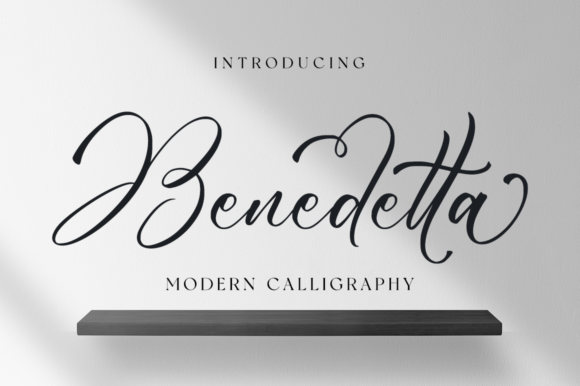
Discover the Elegance of Benedetta Font
As a designer, there’s nothing quite like the thrill of bringing a concept to life. It’s that moment when the blank page is transformed into a vibrant canvas, and your imagination runs wild. You’re searching for the perfect font to set the tone, to evoke emotions, and to make your design truly unforgettable. That’s where the Benedetta Font comes in – a beautiful and delicate handwritten font that adds a touch of luxury to any project.
This stunning font is more than just a pretty face; it’s a valuable tool for designers who want to create something truly special. With its unique feel and PUA encoding, you’ll have access to a wide range of glyphs and ligatures that will elevate your designs to the next level. Whether you’re working on a wedding invitation, a branding project, or a marketing campaign, the Benedetta Font is sure to make a lasting impression.
Benedetta Font Key Features
- Font Family: Benedetta is a script font designed by Alessio Leonardi, a typeface that exudes elegance and sophistication.
- Font Size and Resolution: The font is available in various font sizes and resolutions, including 300 DPI and 600 DPI.
- Unique Characteristics: Benedetta features a flowing, handwritten style with intricate connections between letters, making it ideal for creative and artistic applications.
- Language Support: The font supports multiple languages, including Latin-based languages, making it suitable for a wide range of projects.
- Font Weight and Style: Available in multiple font weights and styles, including regular, bold, italic, and bold italic, offering flexibility for designers and typographers.
Benedetta Font Review
Overall, I have mixed feelings about the Benedetta font. On one hand, it has some nice features that make it a great choice for certain projects. ✨
- It has a beautiful, elegant script feel that’s perfect for formal invitations, wedding stationery, and other high-end materials.
- The font has a wide range of language support, making it a great choice for multilingual projects.
- The font is highly customizable, with many OpenType features and a wide range of font weights and styles.
However, there are some limitations to consider. ⚠️
- The font can be quite difficult to read in smaller sizes, which may be a problem for projects where legibility is a priority.
- The font’s script feel can make it challenging to use in projects where a more modern or minimalist aesthetic is desired.
- The font may not be suitable for projects where a high level of contrast is required, as the characters can blend together in certain situations.
Overall, I would recommend the Benedetta font for projects where elegance and sophistication are a top priority. However, it may not be the best choice for projects where legibility or modernity are key considerations.
Benedetta Font is ideal for:
- Luxury branding and marketing materials
- High-end fashion and
Alex Brush is a beautiful, elegant script font that is perfect for designs that require a touch of sophistication and refinement. It is ideal for use in invitations, wedding stationery, and other high-end designs. Compared to Benedetta Font, Alex Brush has a more refined and delicate feel, making it suitable for designs that require a high level of precision and attention to detail.
Carolyna Pro is a modern, elegant script font that is perfect for designs that require a touch of luxury and sophistication. It is ideal for use in high-end designs, such as fashion branding, luxury packaging, and premium product designs. Compared to Benedetta Font, Carolyna Pro has a more modern and sleek feel, making it suitable for designs that require a high level of sophistication and refinement.
Q: What is the language support for Benedetta?
Benedetta supports a wide range of languages, including Latin, Cyrillic, and Greek scripts. It also includes support for many non-Latin scripts, including Arabic, Hebrew, and Devanagari. However, please note that the language support may vary depending on the specific font format and the device on which the font is being displayed.